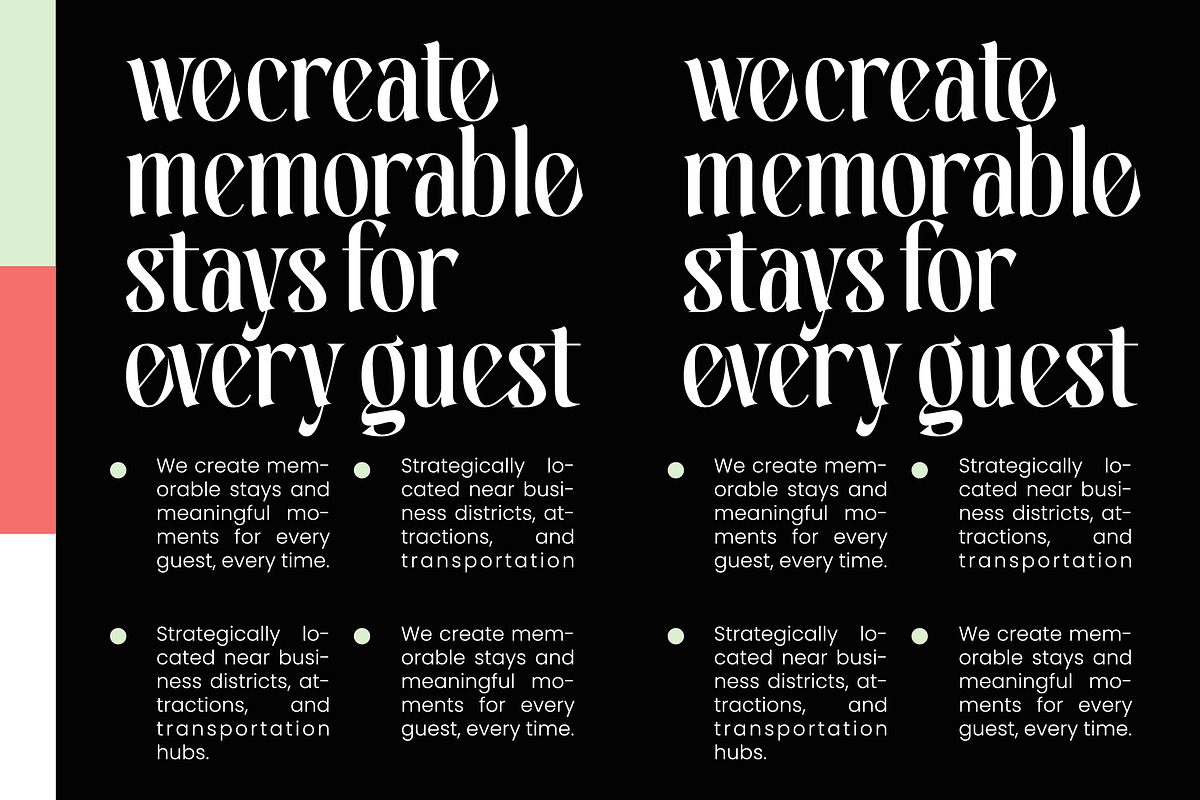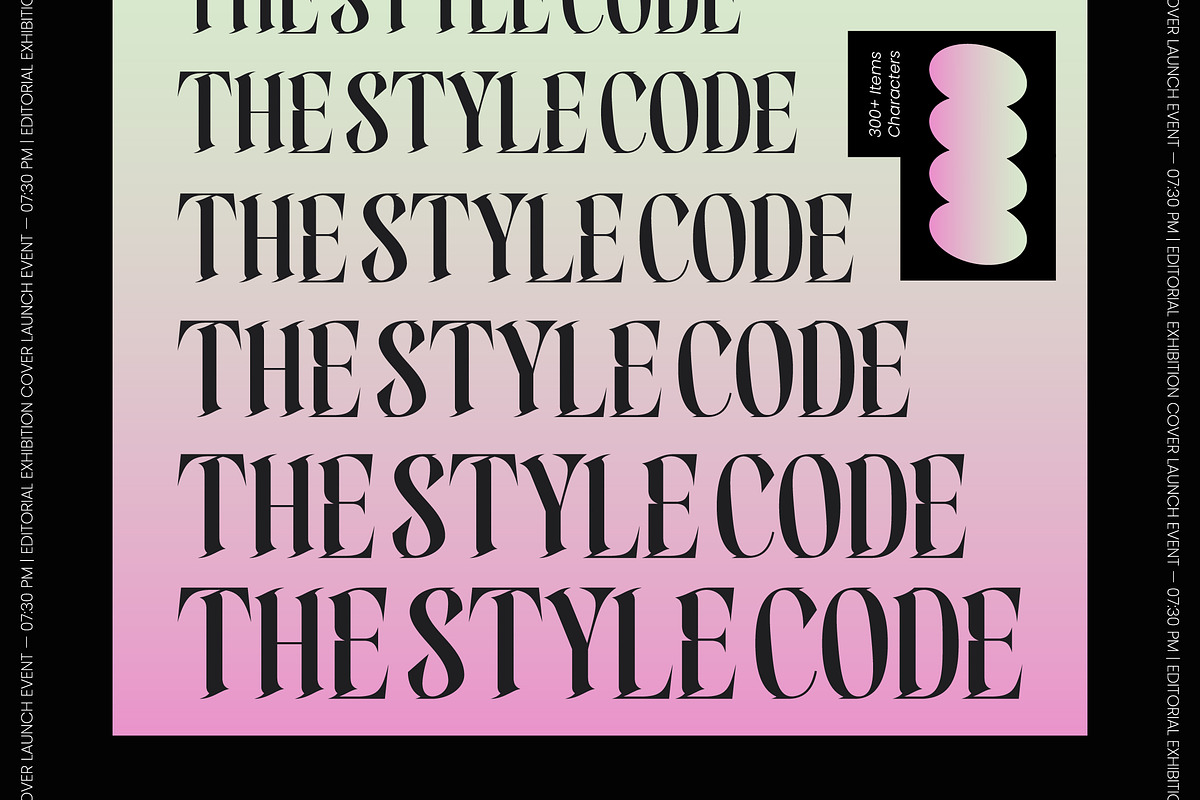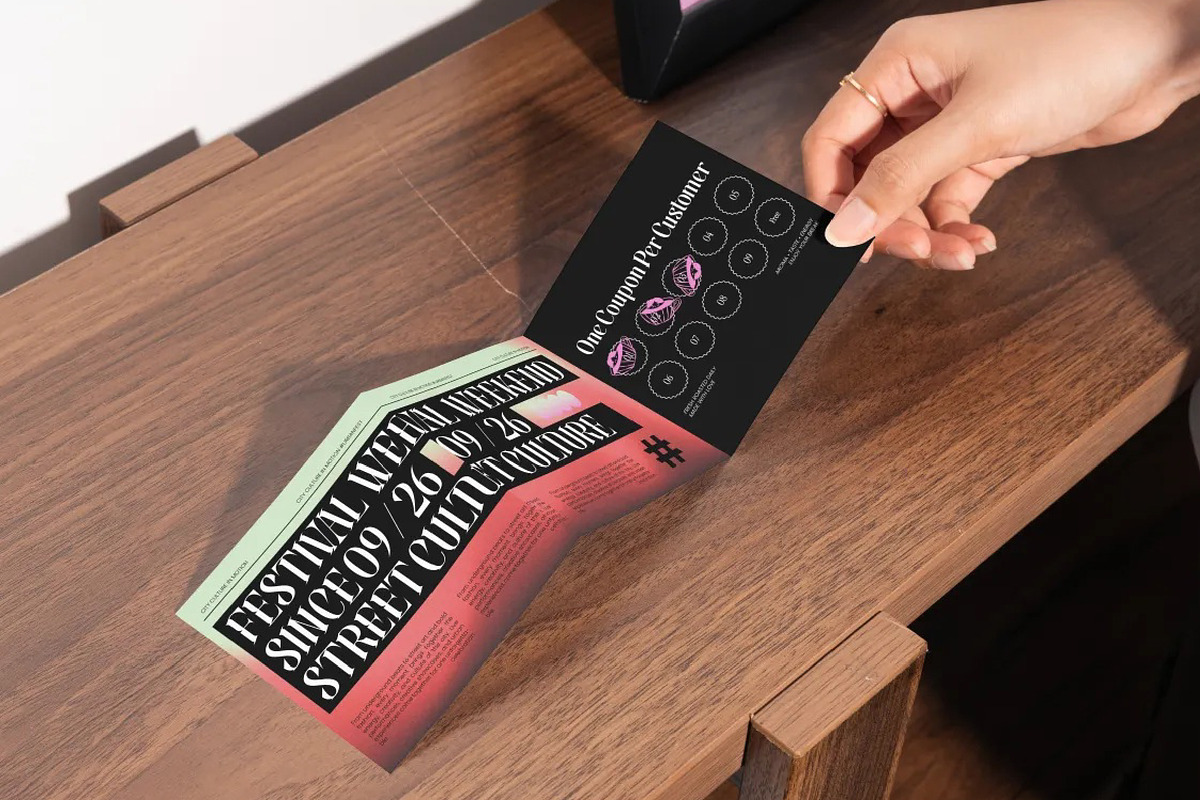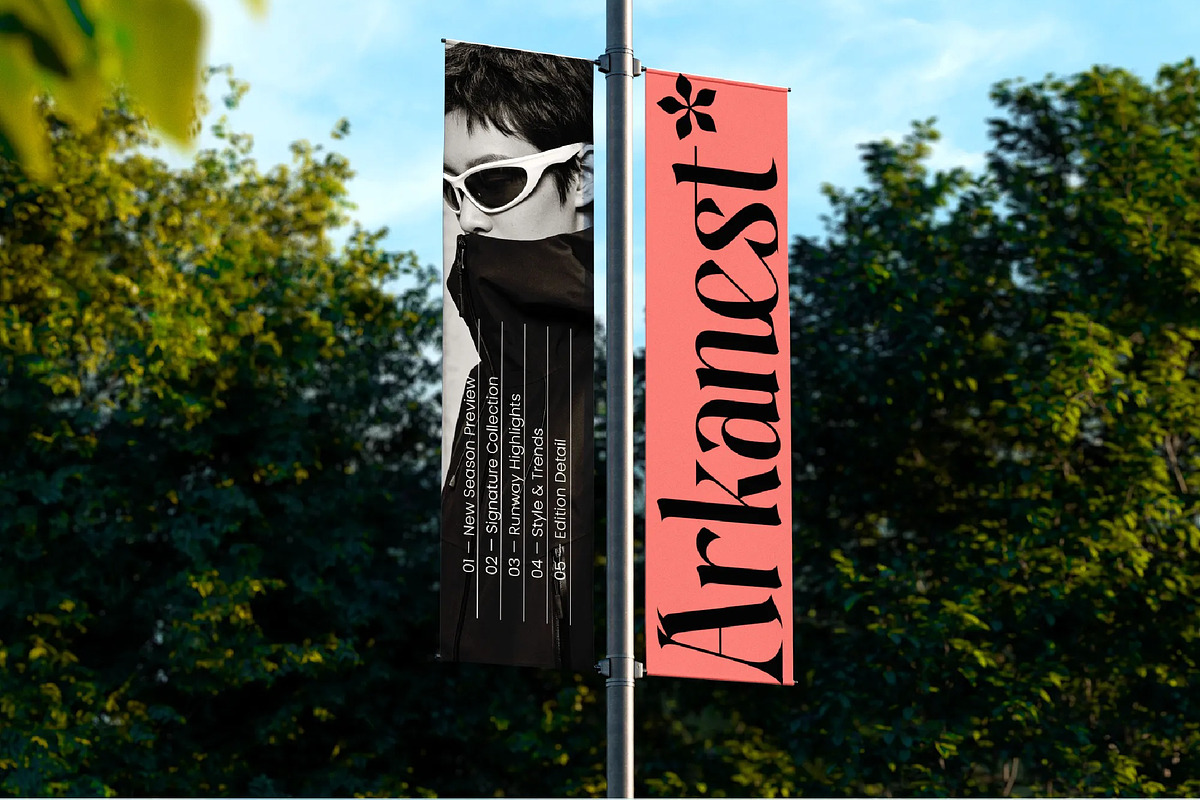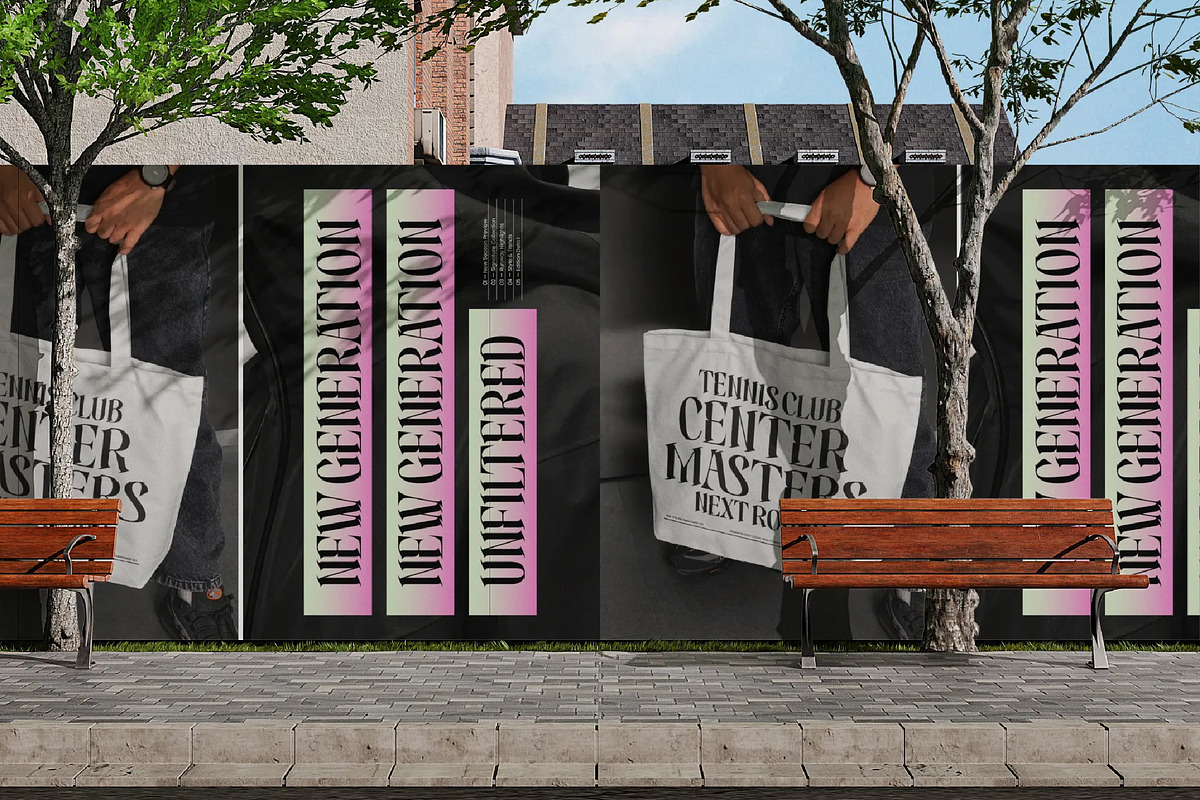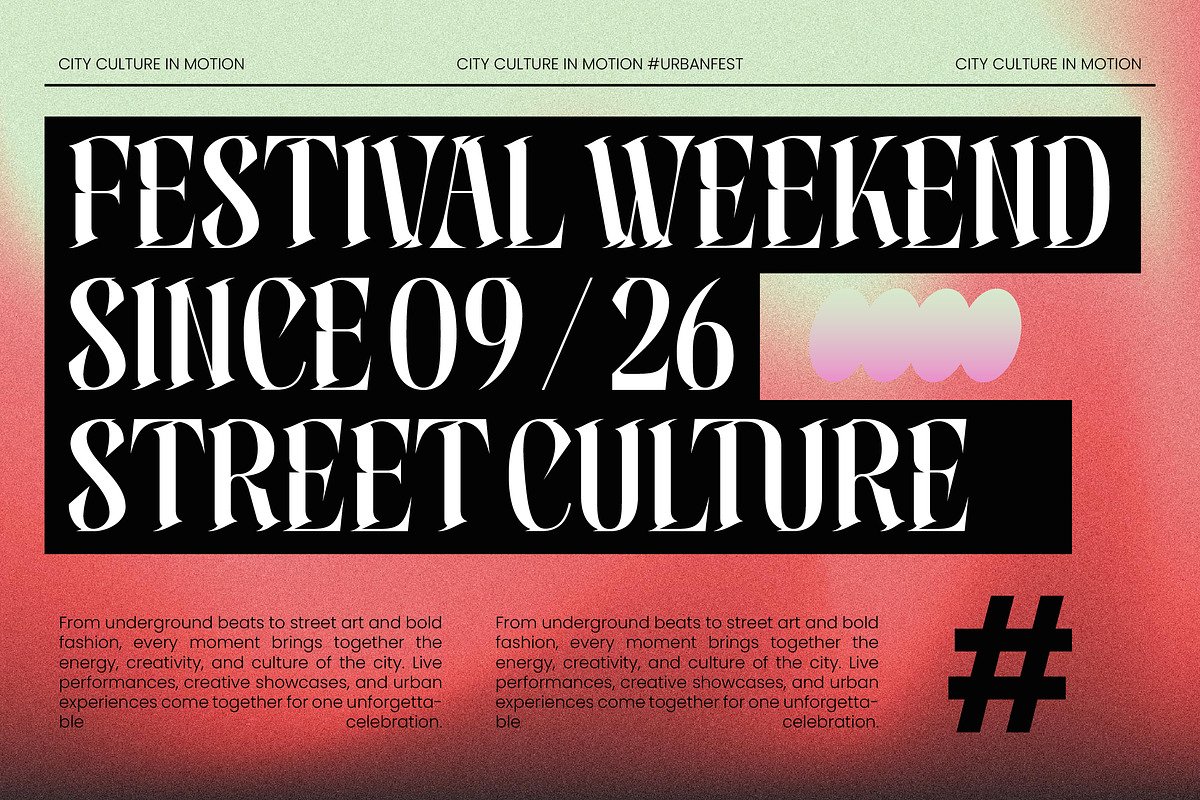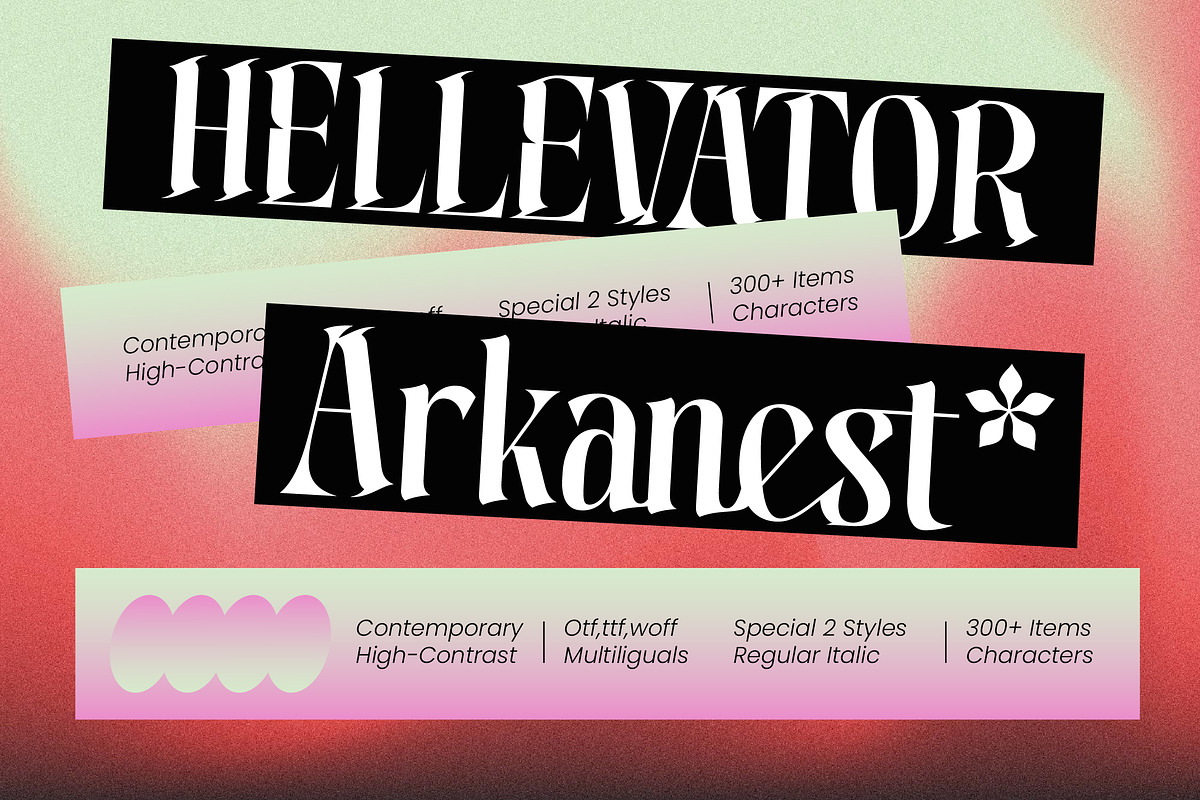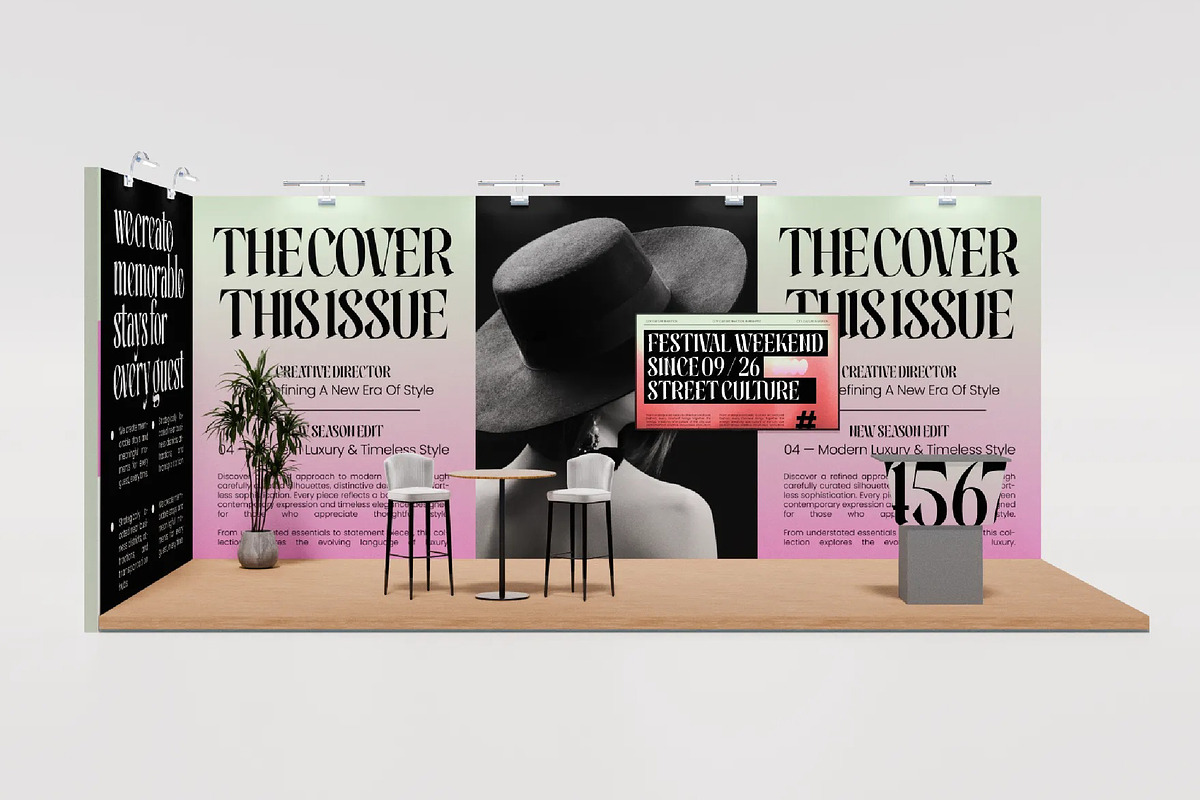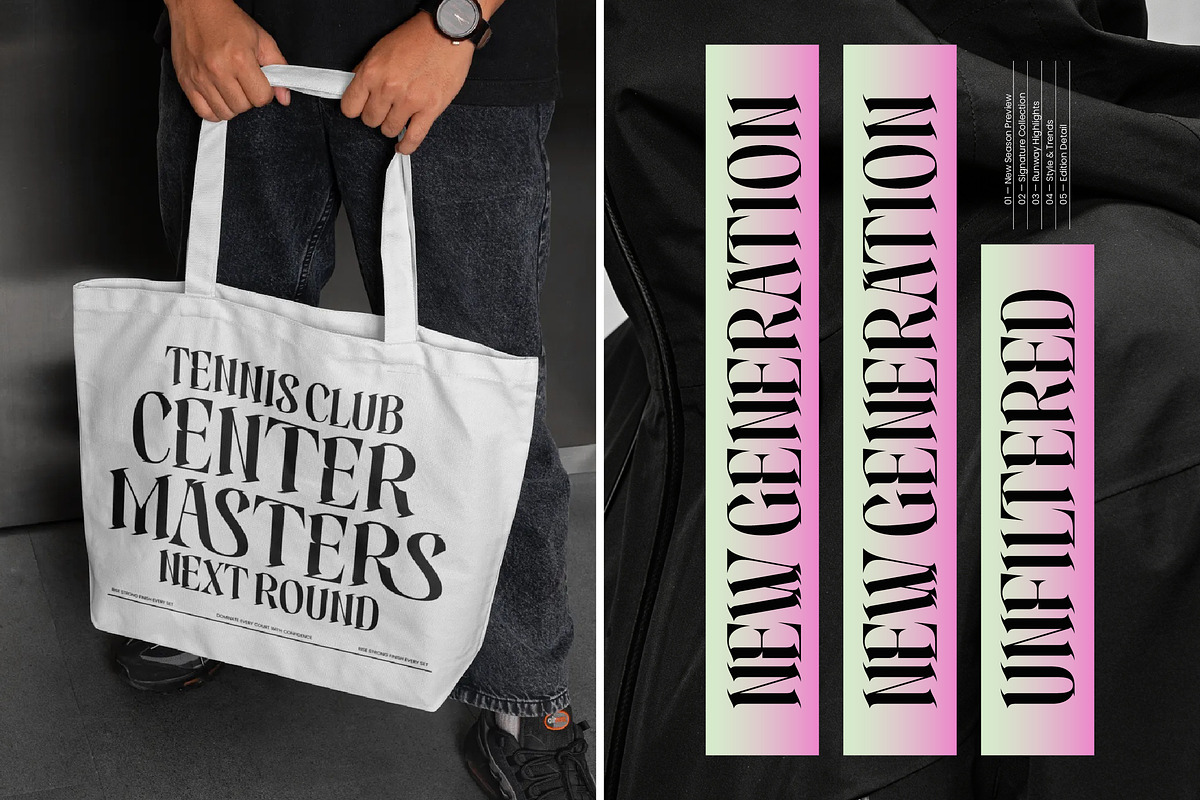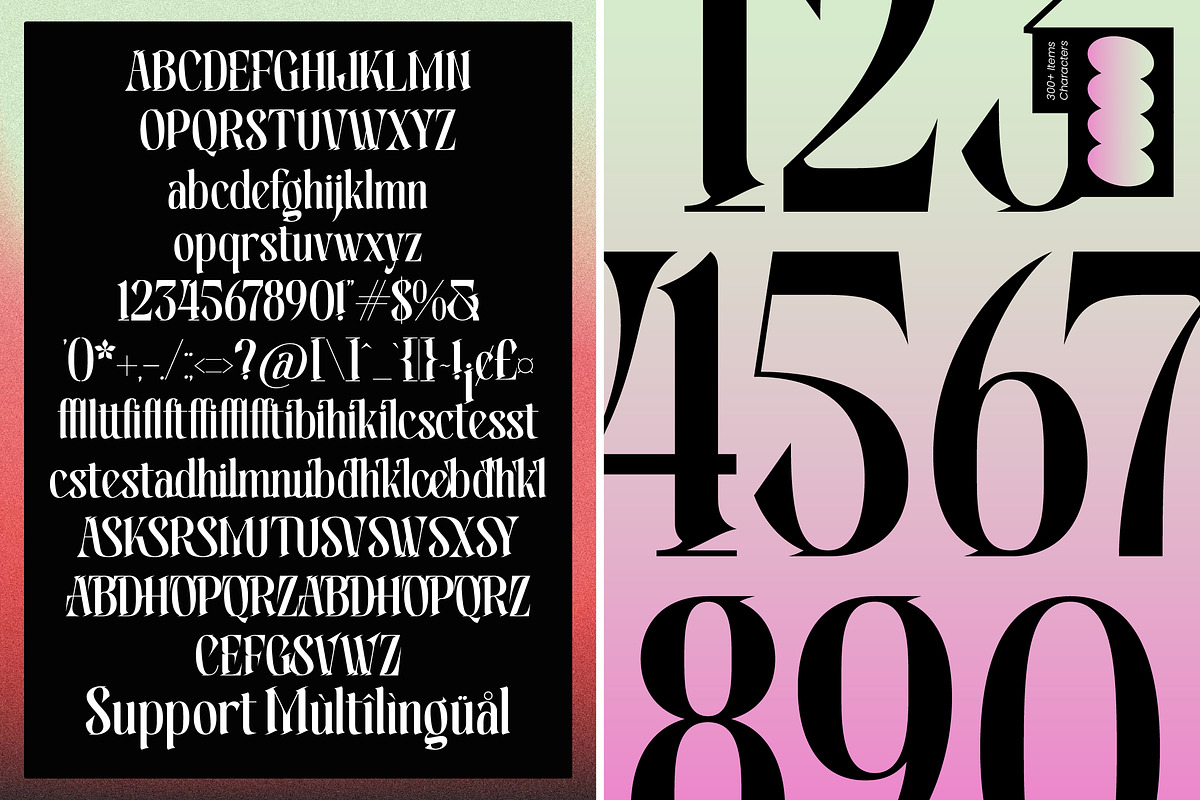
Hellevator Arkanest Modern Serif
Hellevator Arkanest - Modern High-Contrast Serif Font , Experience the sharp elegance of Hellevator Arkanest, a typeface where timeless luxury meets a bold, contemporary edge. This font is crafted to command attention and transform every layout into a sophisticated visual statement.
Inspired by the intersection of classic gothic architecture and ultra-modern fashion editorial aesthetics, Hellevator Arkanest draws from the concept of the style code. It blends deep-rooted traditional serif structures with sharp, razor-thin lines that evoke a sense of high-stakes glamour and mysterious allure.
This modern serif display is engineered for maximum branding impact, offering a unique high-contrast serif experience that feels both experimental and refined. It serves as a premier choice for luxury typography and designers seeking an editorial font that balances dramatic silhouettes with legible, graceful proportions.
As the modern serif trend continues to dominate high-end design, Hellevator Arkanest perfectly fits the demand for character-driven typography. It aligns with the current shift toward editorial display fonts that prioritize personality and artistic flair over generic minimalism.
Versatile enough for a wide range of projects, it is an ideal candidate for high-end logo design and comprehensive branding systems. From avant-garde fashion spreads and luxury packaging to high-style wedding invitations and digital editorial layouts, this font brings a distinct, premium voice to every canvas.
Packed with professional features, this typeface includes a robust set of ligatures and unique alternates to expand your creative possibilities. Full multilingual support and a wide range of international characters ensure your message resonates across global markets with ease.